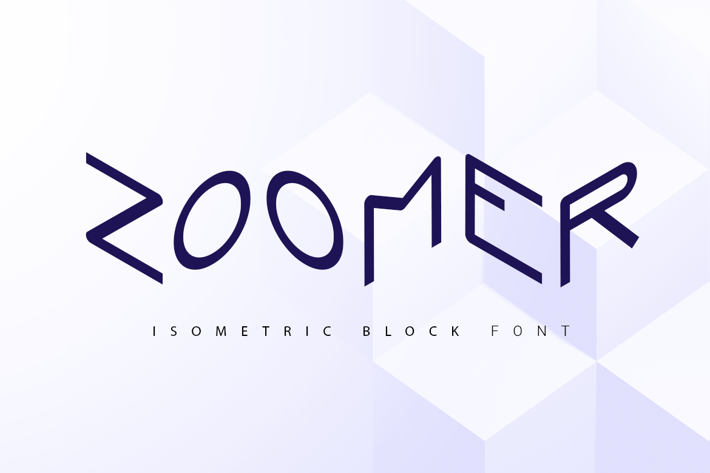
Zoomer| isometric font
Zoomer is an isometric sans serif font designed with rounded letters. The font has mirrored alternates. The font looks good both on a light and on a dark background. The font has only capital letters, it works great to make short titles.
- uppercase letters with alternates
- numbers
- special characters set